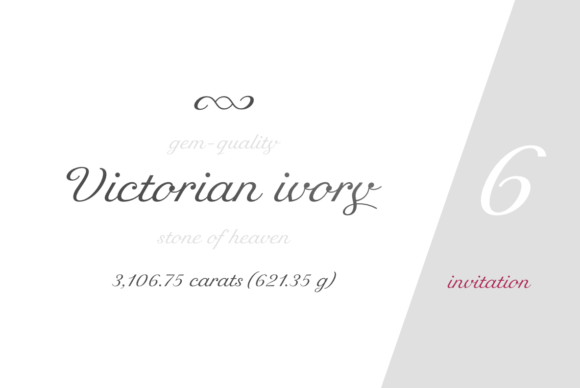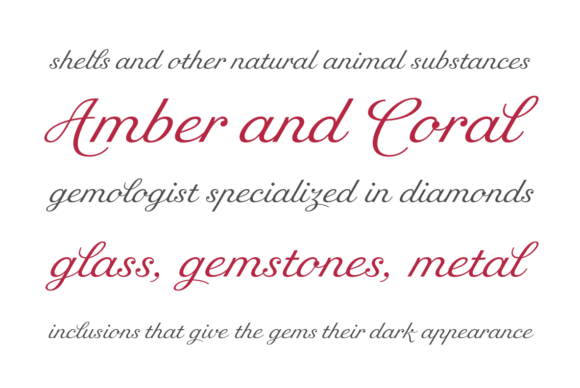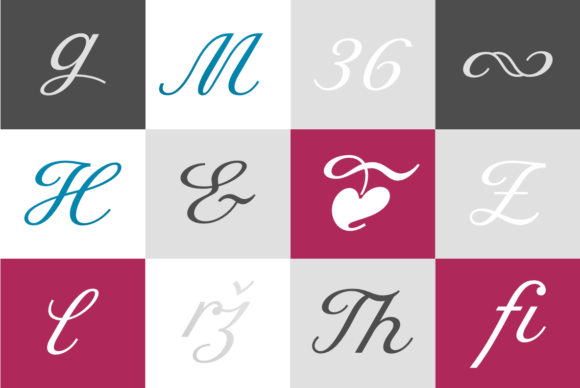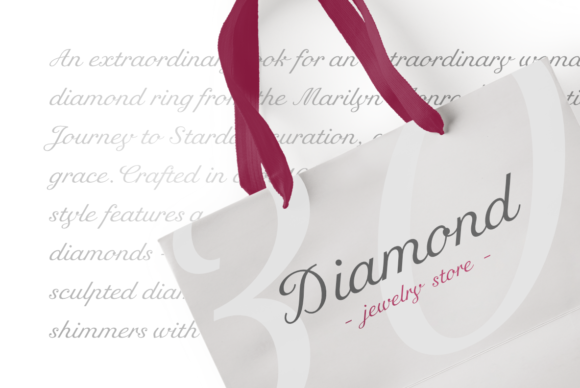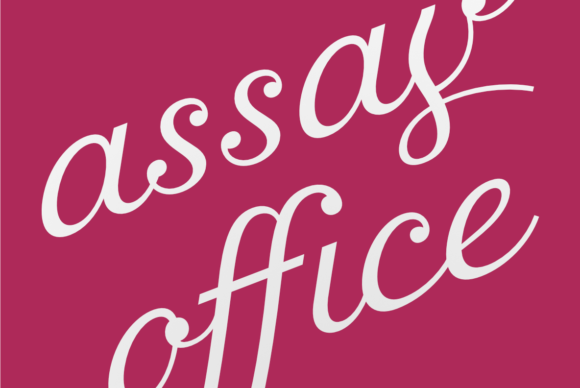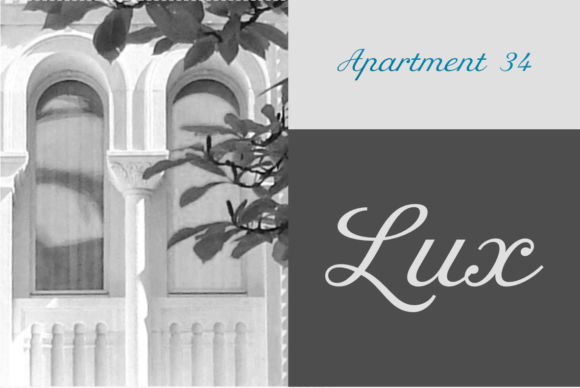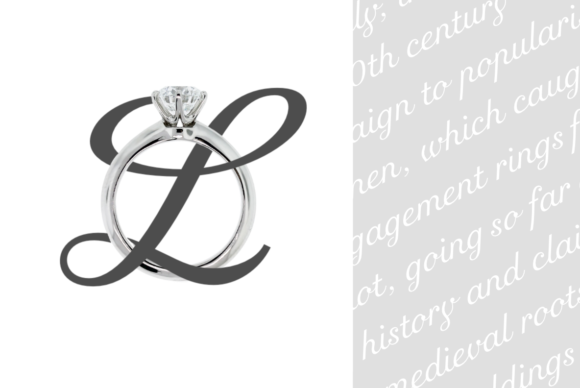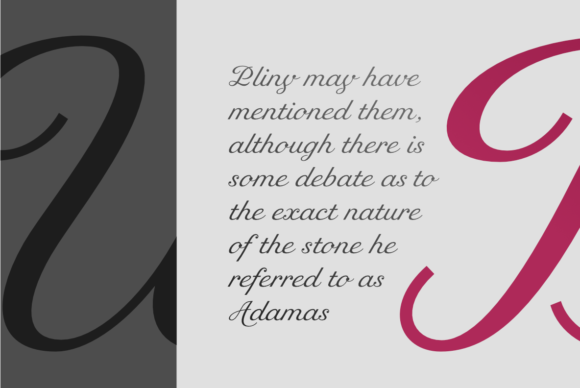
Script Fonts Rusulica Font 0 318 FacebookTwitterPinterestWhatsApp 1 of 9 Rusulica Font Poster 2... Rusulica Font Poster 3... Rusulica Font Poster 4... Rusulica Font Poster 5... Rusulica Font Poster 6... Rusulica Font Poster 7... Rusulica Font Poster 8... Rusulica Font Poster 9... About Rusulica Font Victorian Ivory is a lovely script font featuring charming, playful characters that seem to dance along the baseline. Add this font to your most creative ideas, and notice how it makes them stand out! DOWNLOAD NOW